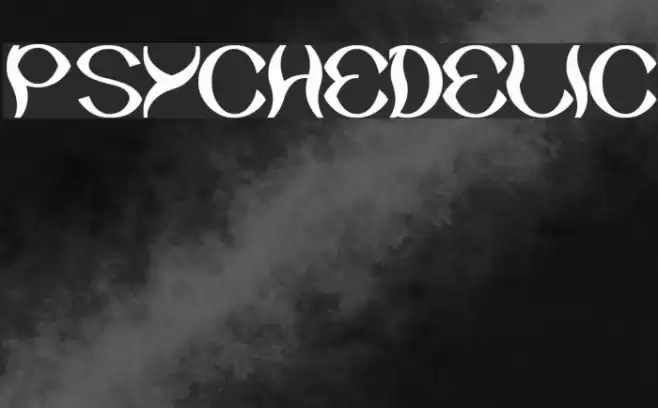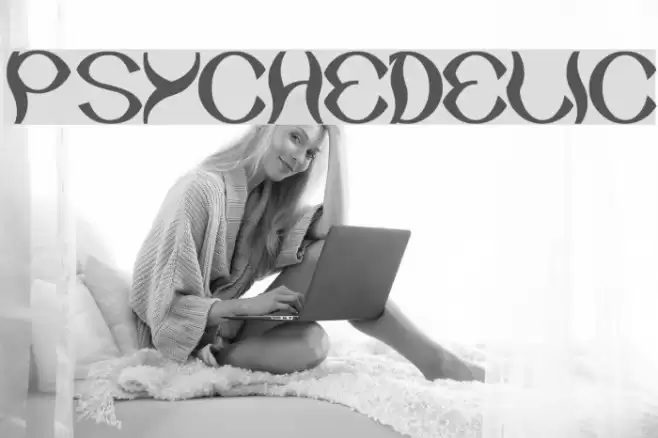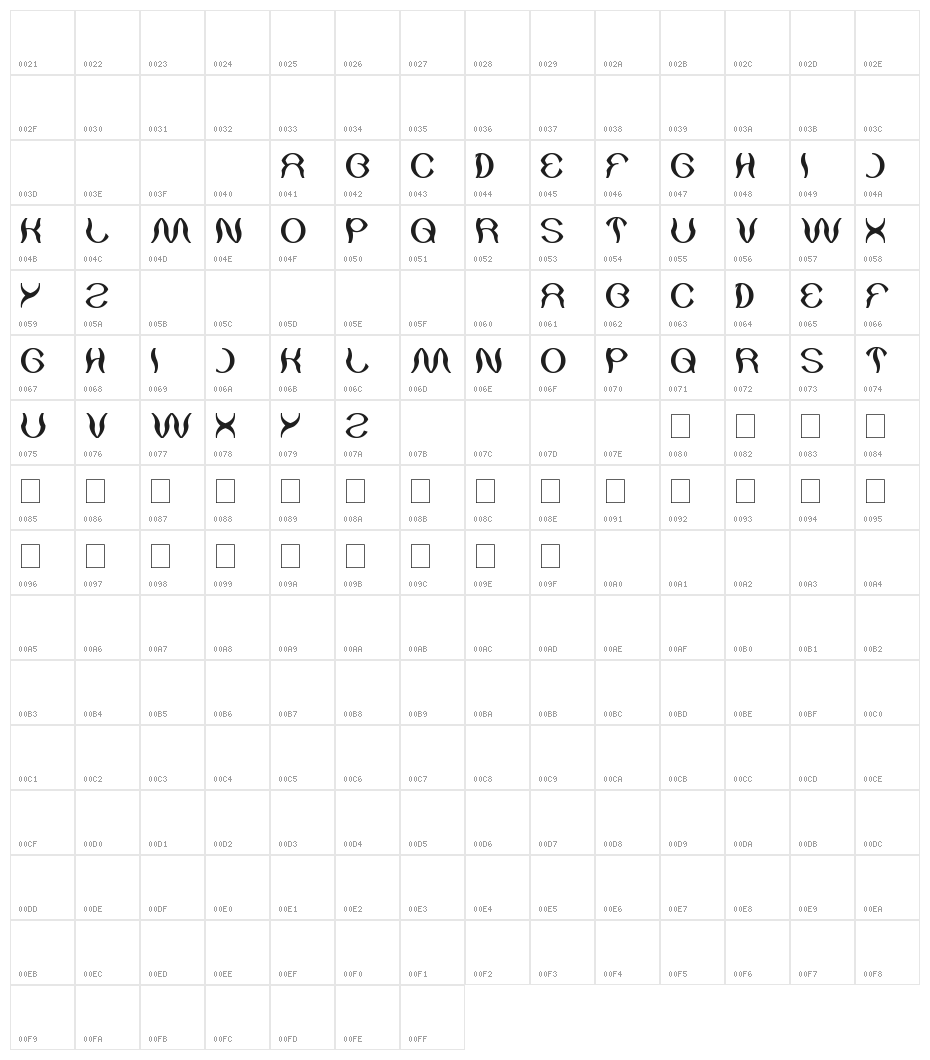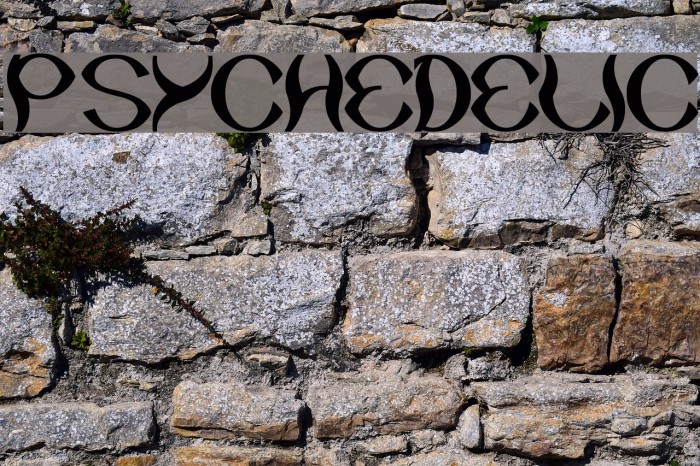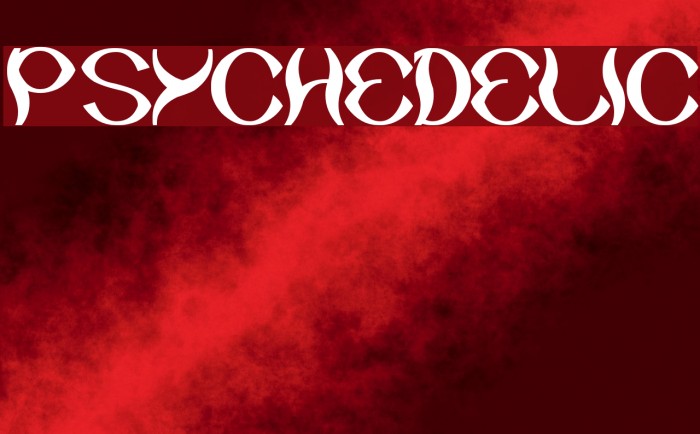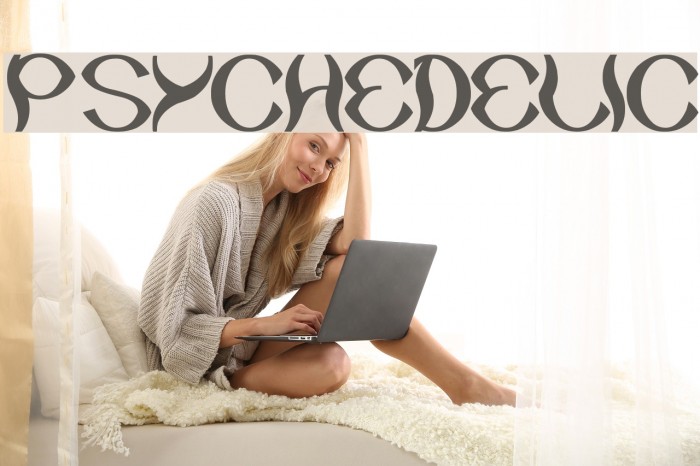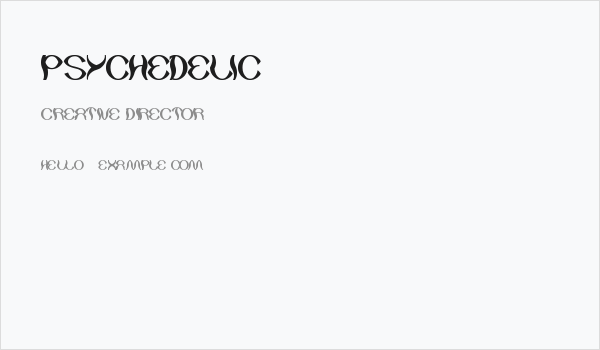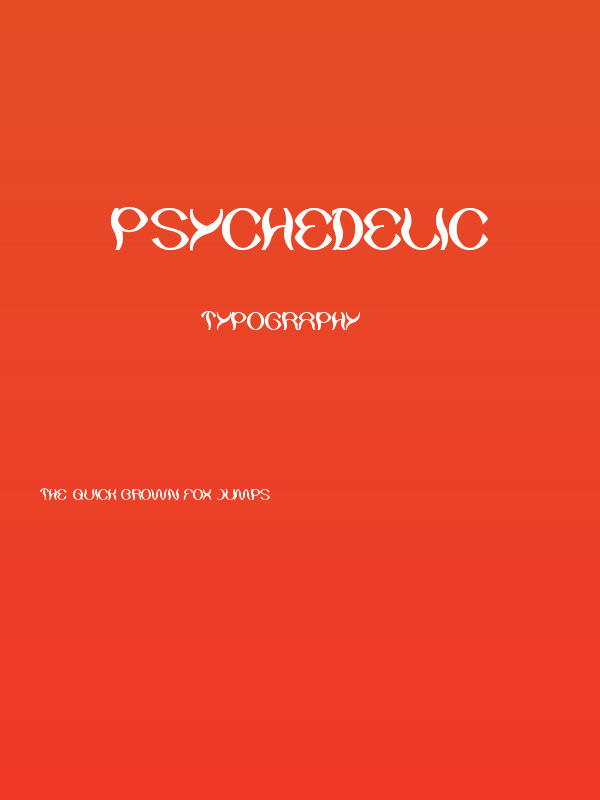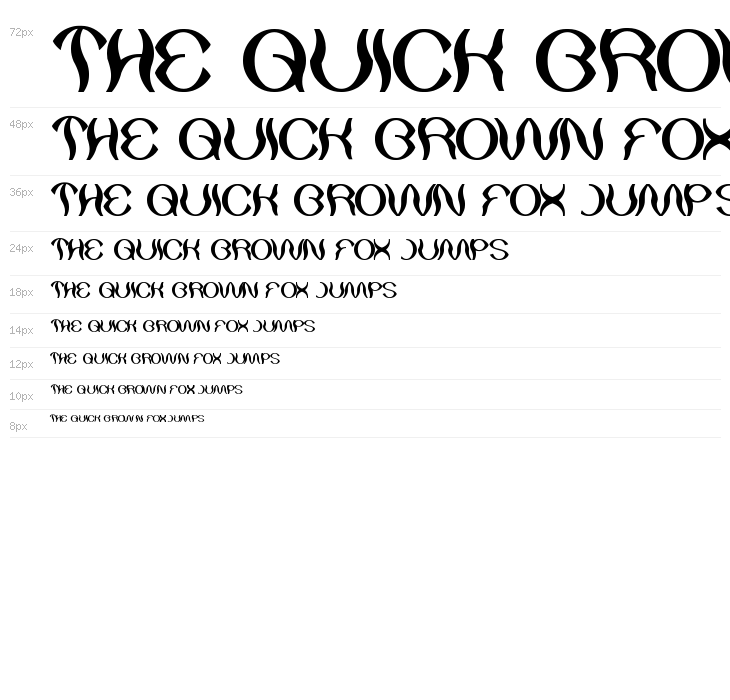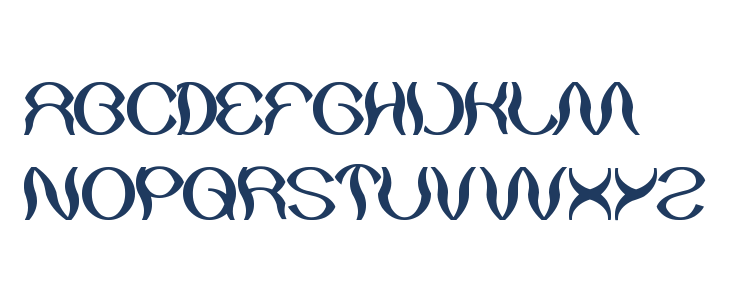
psychedelic Font
psychedelic Description
This font features a bold and artistic design with a distinctly psychedelic flair. The characters are crafted with swirling, organic shapes that evoke a sense of movement and fluidity. Each letter is unique, with exaggerated curves and sharp points that create a dynamic and eye-catching appearance. The font's style is reminiscent of the 1960s and 1970s psychedelic art, making it ideal for projects that aim to capture a retro or avant-garde aesthetic. The boldness of the strokes ensures that the text stands out, while the intricate details add a layer of complexity and visual interest.
- Proposed Projects: Ideal for music festival posters, retro-themed branding, album covers, and artistic event invitations.
- Overall Style: Psychedelic, Retro